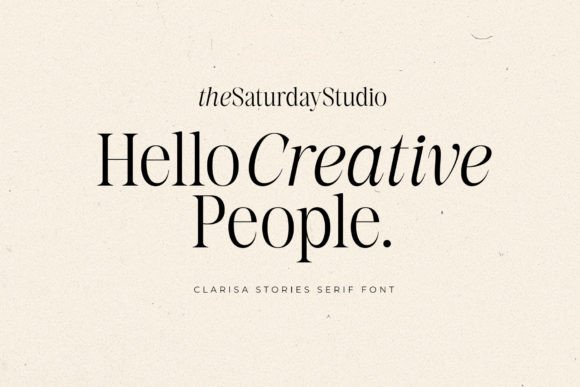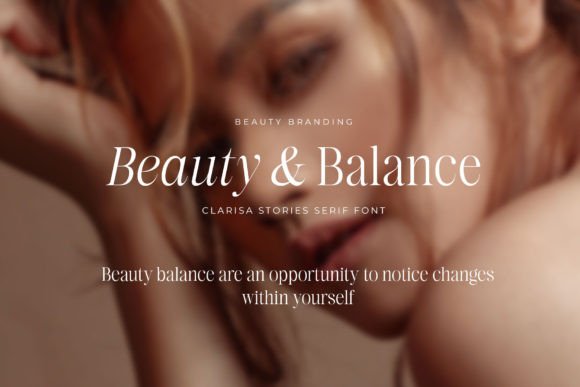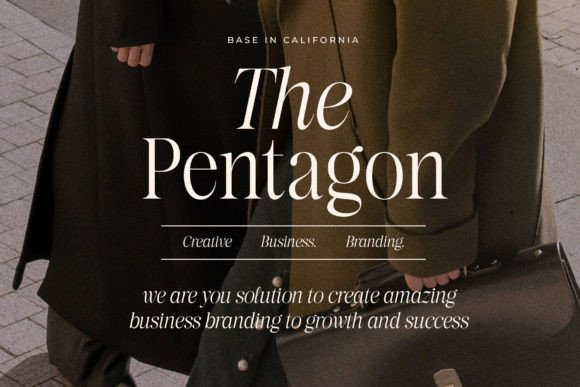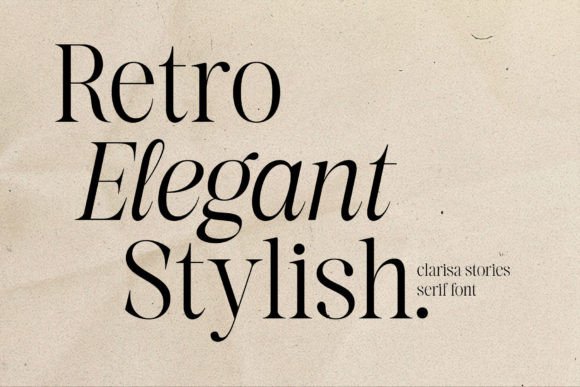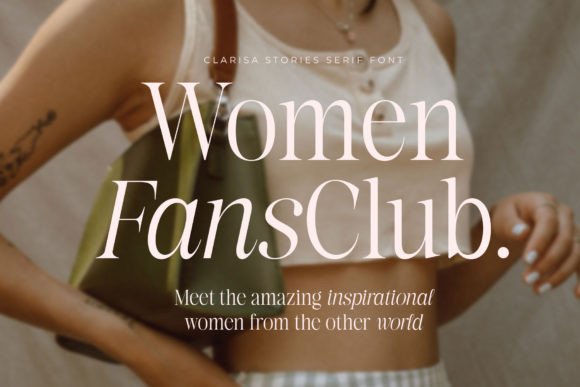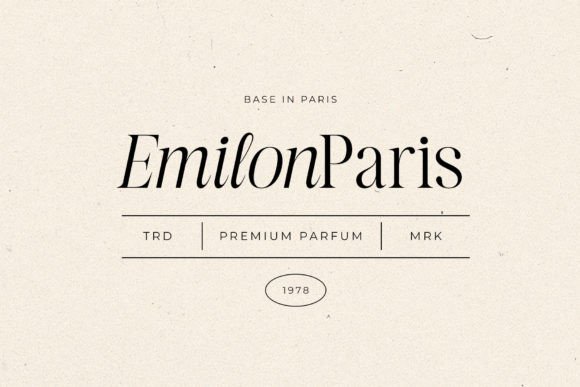
Introducing Clarisa Stories Font: A Glamorous Eighties-Inspired Serif
Are you looking for a font that exudes elegance, sophistication, and a touch of nostalgia? Look no further than Clarisa Stories, a glamour eighties magazine-inspired serif font with a complementary italic version. This stunning font is perfect for designers and crafters seeking to create eye-catching designs that evoke the luxury and glamour of the eighties.
The Inspiration Behind Clarisa Stories
Clarisa Stories is a serif font that draws inspiration from the iconic magazines of the eighties. Its design is characterized by elegant lines, refined curves, and a touch of sophistication. The font’s creator aimed to capture the essence of this iconic era, infusing it with a modern twist that makes it suitable for a wide range of creative endeavors.
Key Features of Clarisa Stories
So, what makes Clarisa Stories stand out from other fonts? Here are some of its key features:
- Elegant Serif Design: Clarisa Stories boasts a beautiful serif design that adds a touch of sophistication to any project.
- Complementary Italic Version: The font comes with a complementary italic version, allowing you to create stunning combinations and add visual interest to your designs.
- High Contrast and Crisp Options: Clarisa Stories offers two versions: one with high contrast and a crisper look, and another with a more subtle, elegant feel.
- Versatility: This font is incredibly versatile, making it suitable for a wide range of applications, from logos and titles to branding, packaging, and more.
Using Clarisa Stories in Your Designs
Clarisa Stories is an incredibly versatile font that can be used in a variety of creative endeavors. Here are some ideas to get you started:
- Logos and Branding: Create stunning logos and branding materials that exude elegance and sophistication.
- Titles and Headlines: Use Clarisa Stories to create eye-catching titles and headlines for magazines, newspapers, and online publications.
- Invitations and Wedding Designs: Add a touch of luxury and glamour to your invitations, wedding designs, and other special event materials.
- Product Packaging and Labels: Use Clarisa Stories to create beautiful product packaging and labels that stand out on store shelves.
- Social Media Posts and Advertisements: Create stunning social media posts and advertisements that grab attention and drive engagement.
Why Choose Clarisa Stories?
So, why should you choose Clarisa Stories for your next design project? Here are just a few reasons:
- Unique and Eye-Catching: Clarisa Stories is a unique and eye-catching font that will help your designs stand out from the crowd.
- Elegant and Sophisticated: This font exudes elegance and sophistication, making it perfect for high-end designs and luxury brands.
- Versatile and Flexible: Clarisa Stories can be used in a wide range of applications, from print to digital.
- Easy to Read and Understand: The font’s clear and crisp design makes it easy to read and understand, even at small sizes.
In conclusion, Clarisa Stories is a stunning font that is sure to elevate your designs to the next level. Its elegant serif design, complementary italic version, and versatility make it a beautiful choice for any creative endeavor. Whether you’re a designer, crafter, or DIY enthusiast, Clarisa Stories is a must-have font that will help you create stunning designs that evoke the luxury and glamour of the eighties. So why wait? Download Clarisa Stories today and start creating your own eye-catching designs!